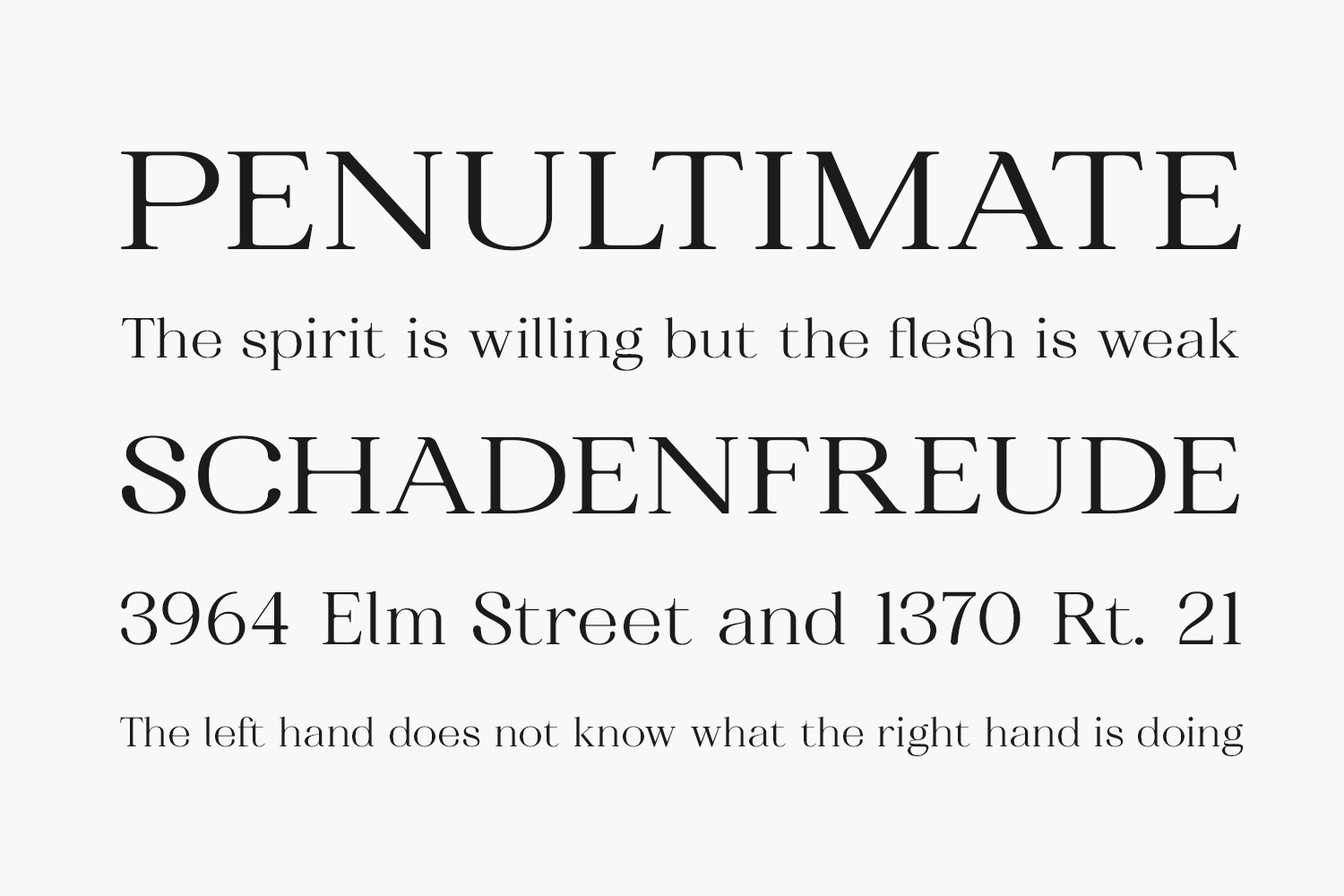
Geraldine Free Font embodies timeless style and sophistication as a serif font. Regardless of your subject matter, adding this font to your collection will undoubtedly enhance your design possibilities and elevate your creative projects. Geraldine Free Font is free for personal use only. Please purchase the full version for commercial use.
Designed by Second Son Radiance